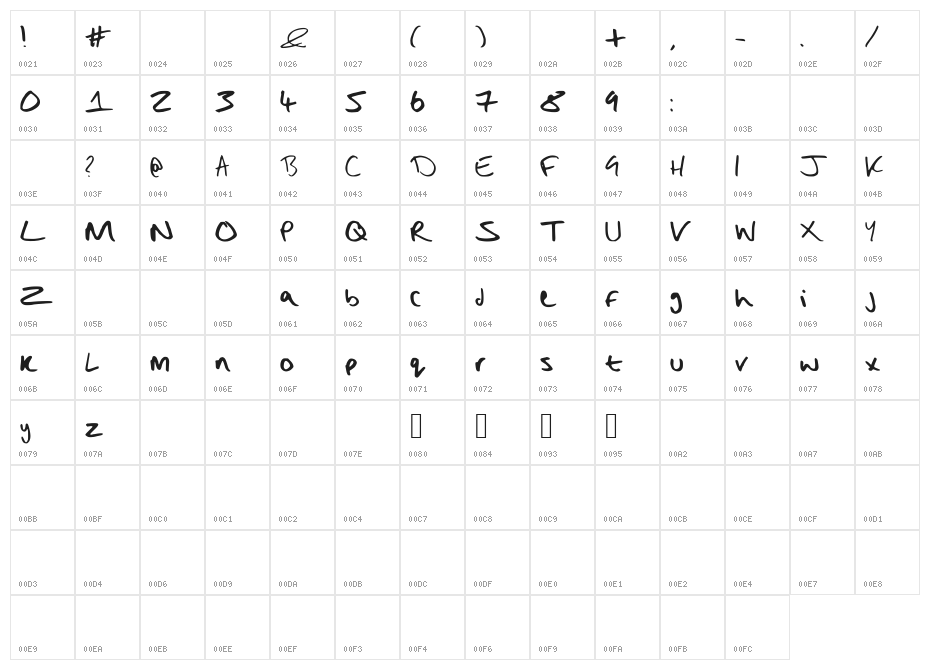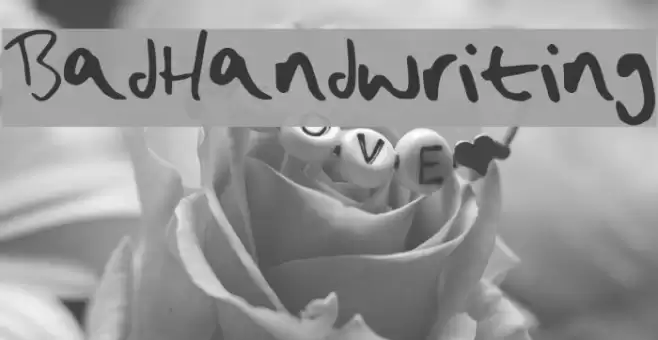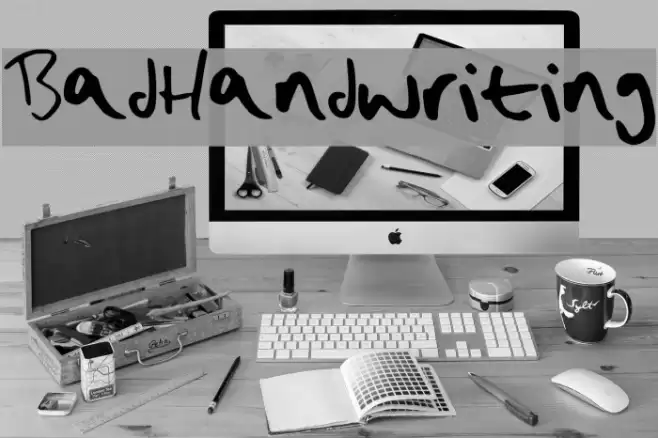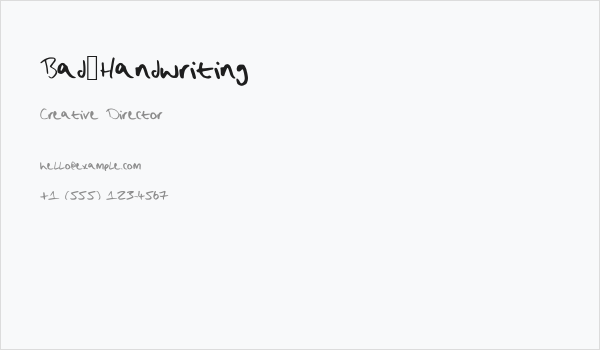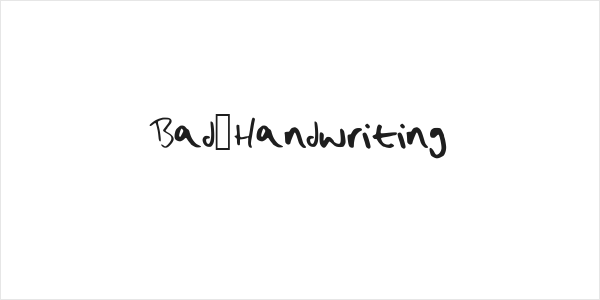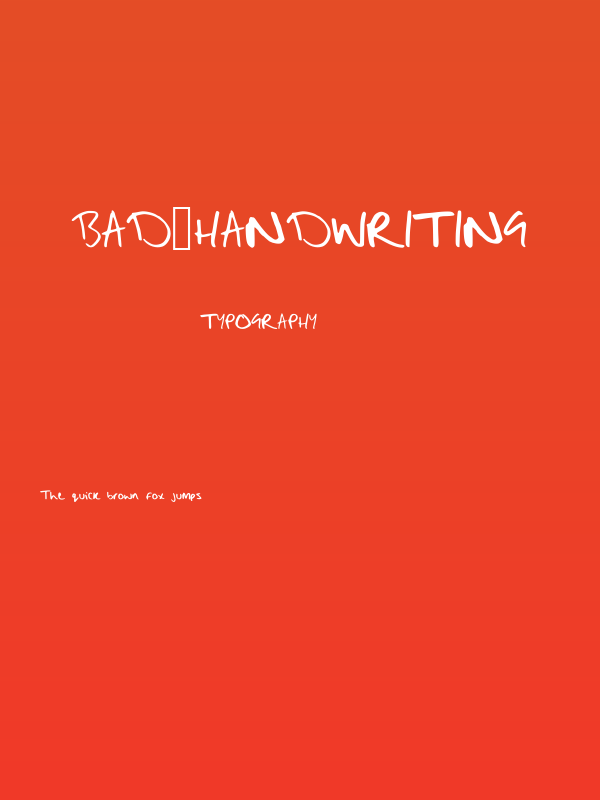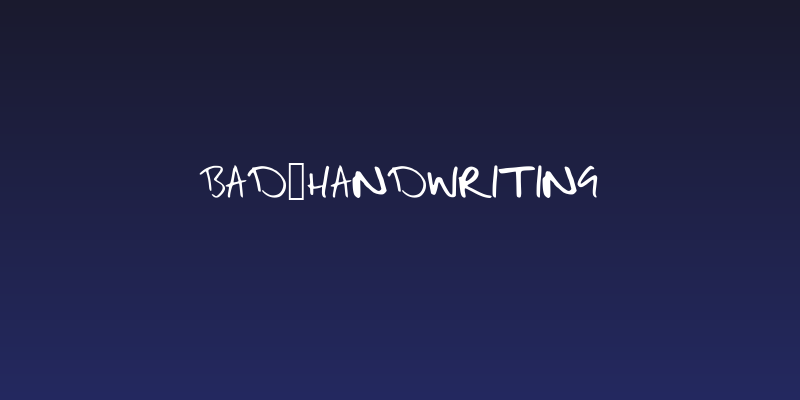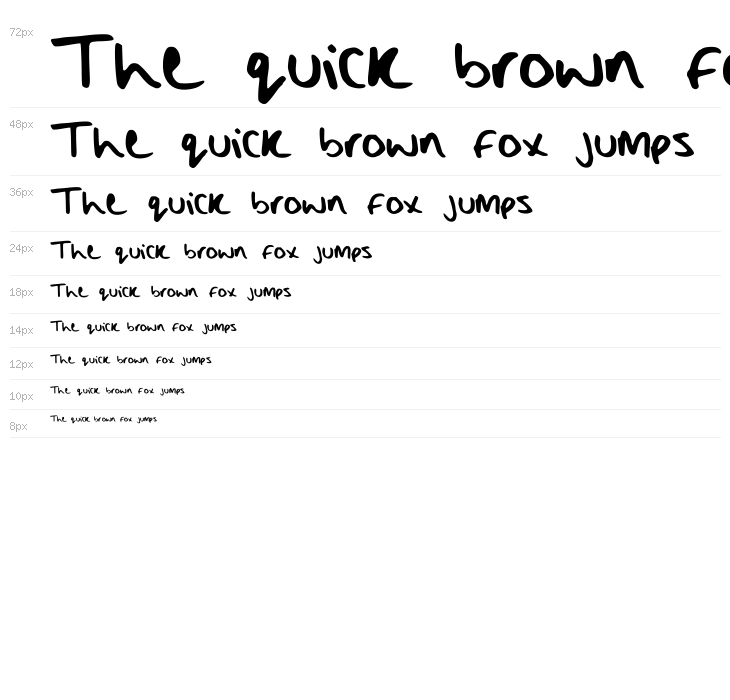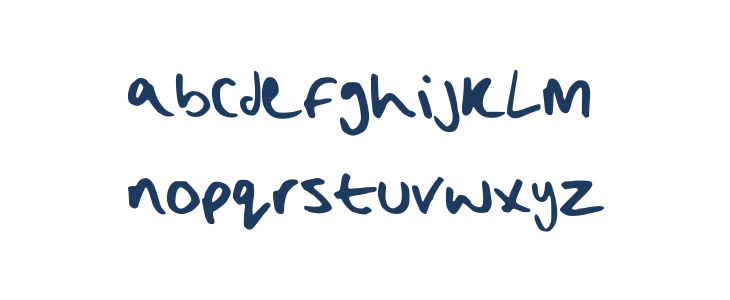
Bad_Handwriting Font
Bad_Handwriting Description
This font exudes a casual and spontaneous vibe, reminiscent of quick, handwritten notes. The letters are unevenly sized and spaced, giving it an authentic, personal touch. The strokes are bold and slightly irregular, adding to its informal charm. The uppercase and lowercase letters maintain a consistent style, with rounded edges and a playful appearance. Numbers and special characters follow the same handwritten aesthetic, making the font suitable for projects that require a personal or informal tone. Its unique style makes it stand out, perfect for creative and artistic endeavors.
| Proposed Projects | Ideal for greeting cards, personal notes, informal invitations, and creative projects. |